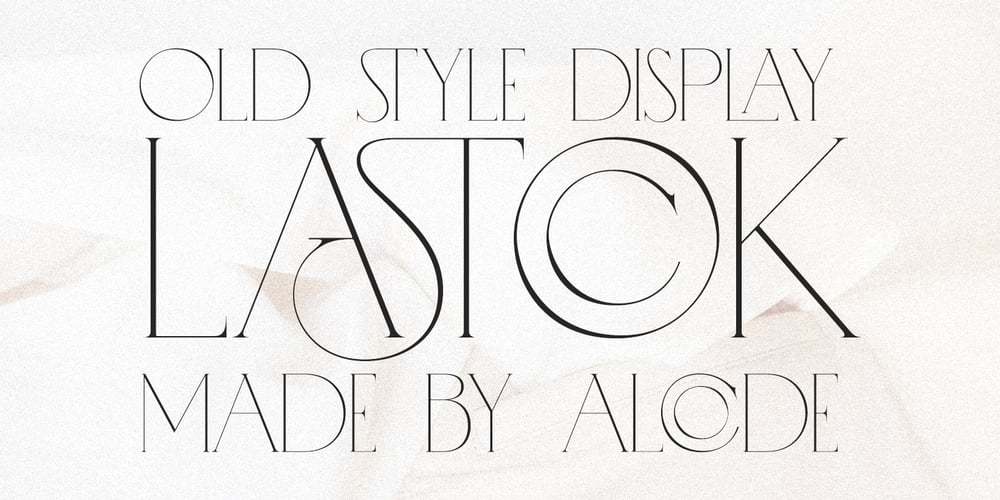
Lastock Font Family was designed by Sukjana Almunandar and published by Alcode. Lastock contains 1 styles and family package options. Lastock is a unique vintage-inspired thin serif display font, with interesting ligatures and special characters to try. This will make this typeface usable in all design projects and works perfectly to be paired with script typefaces or handmade fonts, News Headlines, Posters, Packaging, T-shirts, Postcards, Invitations, Wedding Signs, Sign Paintings, Nameplates, and many moreTry Lastock, enjoy the richness of OpenType features and let her fun and elegant excitement make you happy and enhance your creativity! You can use this font very easily.• Multilingual Support, Interesting ligatures and Special Characters